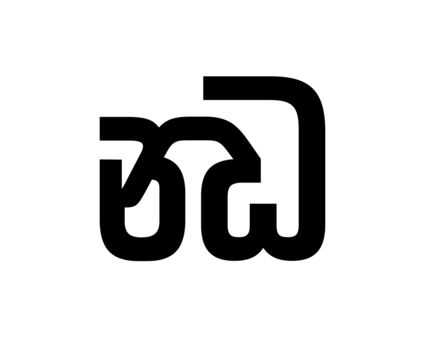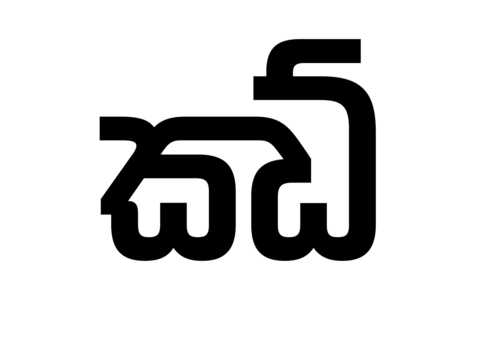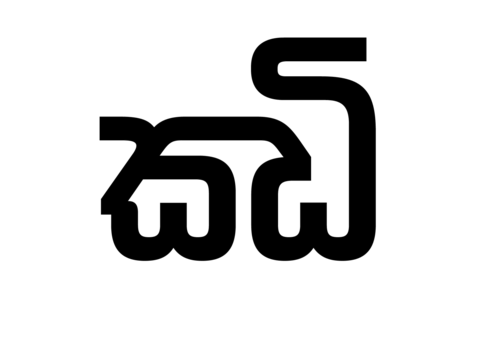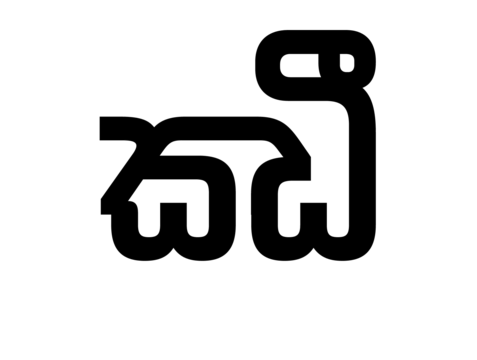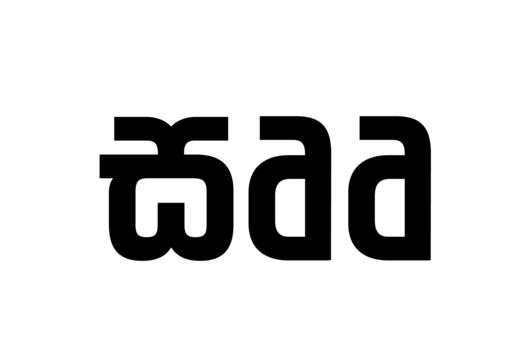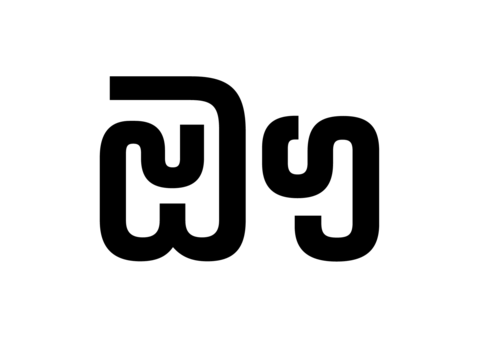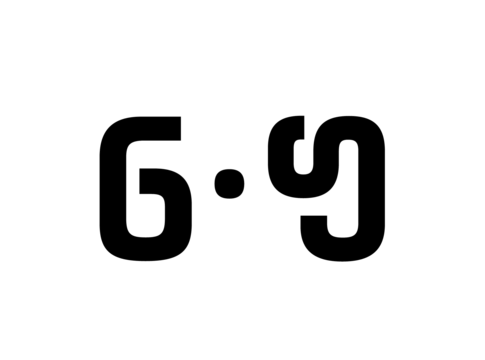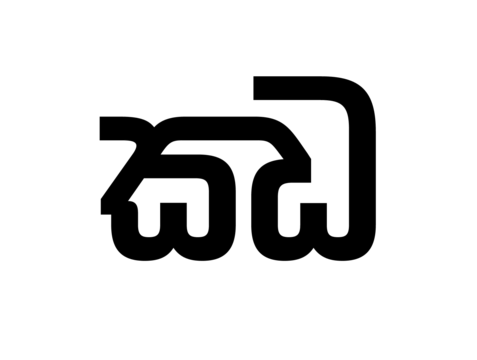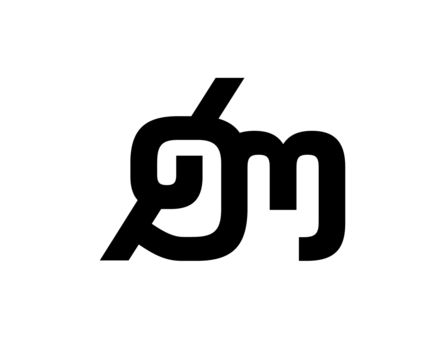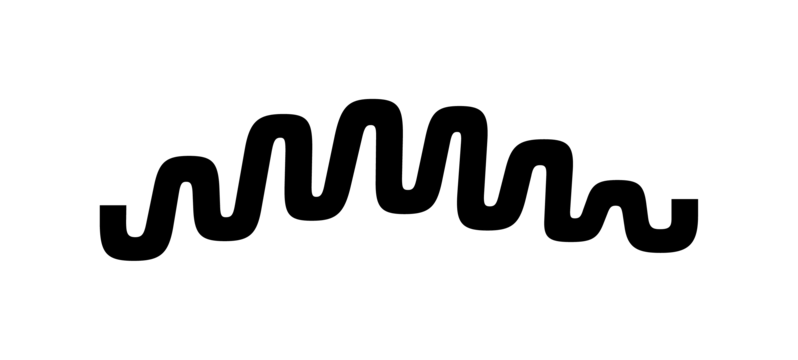
Akhand Sinhala is a family of 8 compact mono-linear typefaces. The letterforms are dynamic; typically round shapes appear more compact, as their verticals have been flattened. This ‘straightening out’ gives text set in the typefaces a streamlined look. Indeed, Akhand Sinhala is designed according to a modular system. All shapes bear a strong commonality to each other, without becoming repetitive. However, the curves in the modules have all been optically corrected, removing the mechanical nature that would otherwise become too dominant.
The Akhand Sinhala family includes eight font styles. This broad range of weights makes combinations with a strong degree of contrast possible; the lightest and the heaviest styles may be mixed to create a powerful effect in your design. Each font style in Akhand offers full support for conjuncts and ligatures.
Family Name Akhand Sinhala
Designer(s) Aditi Pimprikar
Classification Sans